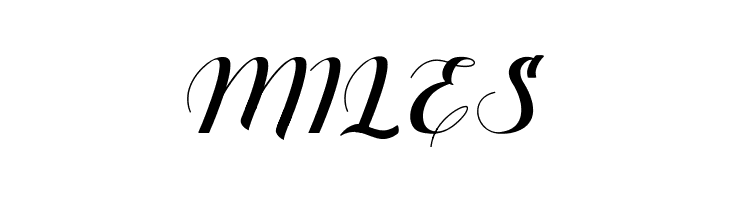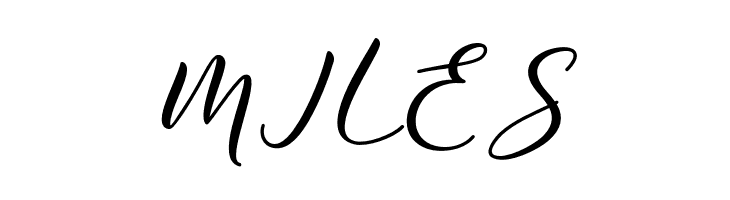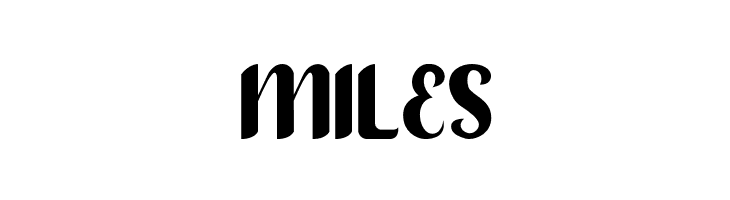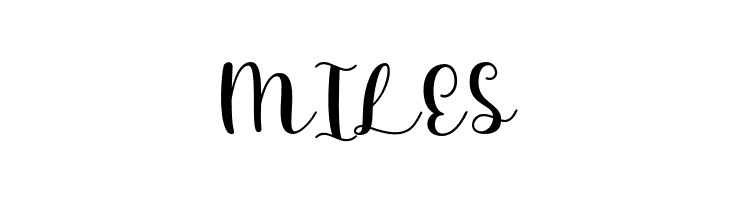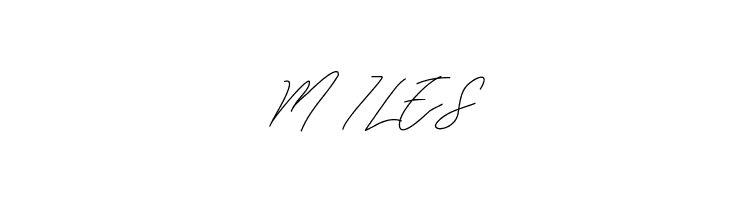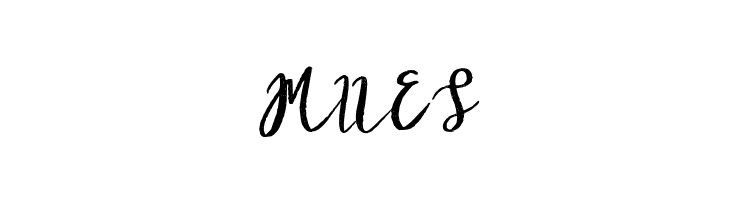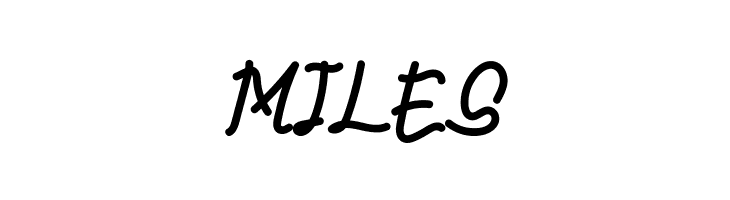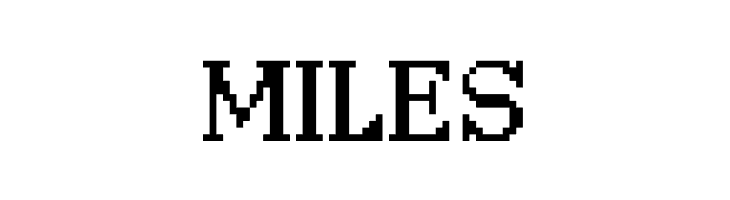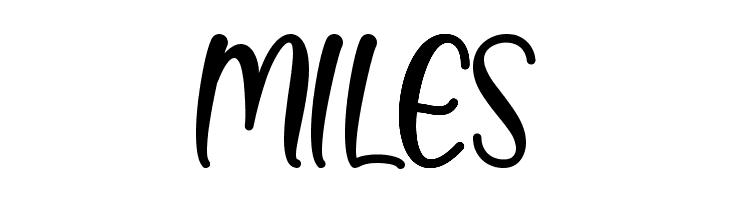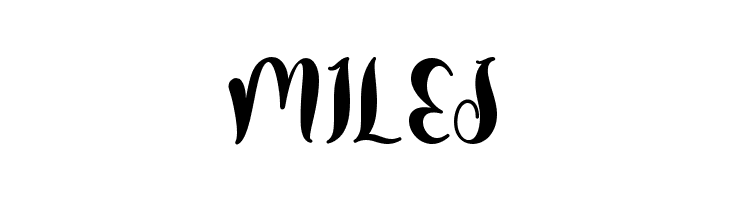
An elegant, flowing script font with bold, cursive strokes and artistic flair.
A bold, playful font with a thick outline and rounded, slightly slanted characters.
A bold, brush-like script font with a lively, hand-drawn aesthetic.
A whimsical and playful script font with flowing, interconnected letters.
A bold, textured script font with a hand-drawn, cursive style.
A bold, expressive font with modern and vintage influences.
A bold, expressive font with elegant curves and sharp angles.
A graceful, flowing script font with elegant, looping strokes.
An elegant, flowing script font with smooth, cursive letterforms.
A modern, elegant script font with flowing, cursive characters.
A sophisticated script font with elegant, flowing cursive letters.
A casual, handwritten font with smooth curves and a friendly appearance.
A playful, handwritten font with smooth, flowing curves and a casual style.
A playful, handwritten font with an informal and lively style.
A playful, bold handwritten font with dynamic strokes and a casual style.
A playful, handwritten font with tall, narrow letters and a modern aesthetic.
A whimsical and flowing script font with elegant curves and playful swashes.
A charming and elegant script font with fluid, graceful strokes.
A playful, handwritten font with bold, dynamic letters and a lively style.
A cursive, handwritten-style font with elegant loops and swashes.
A flowing, cursive font with elegant, elongated strokes and interconnected letters.
A bold, artistic script font with a handcrafted, brush-like style.
A playful, hand-drawn font with a textured, scribbled appearance.
A bold, geometric font with a modern and cohesive design.
A playful, dice-themed decorative font with bold, high-contrast characters.
An elegant, flowing script font with thin, delicate strokes and graceful curves.
A playful, geometric font composed of dots and squares, ideal for creative projects.
A dynamic brush script font with expressive, fluid strokes and a hand-crafted feel.
A playful handwritten font with smooth, irregular strokes and a casual feel.
A lively script font with fluid, connected letterforms and a playful elegance.
A bold slab serif font with strong serifs and high contrast, ideal for impactful headlines.
A bold, decorative font with a vintage, circus-like style.